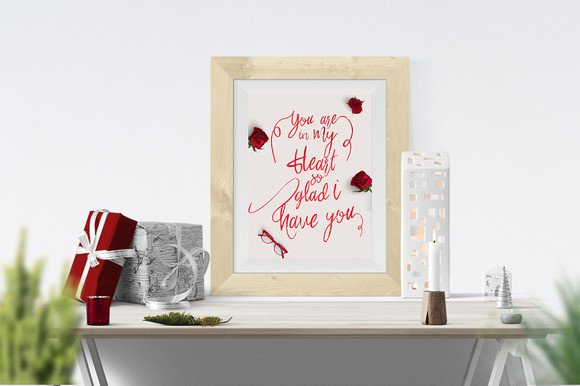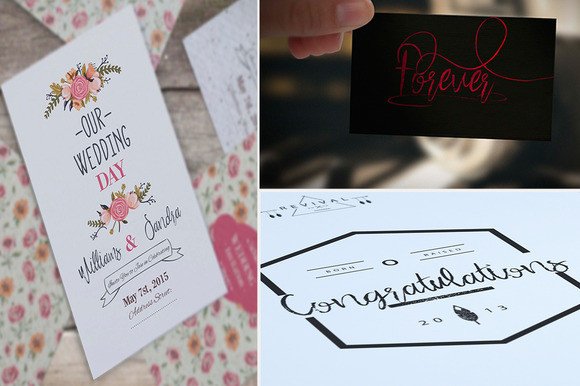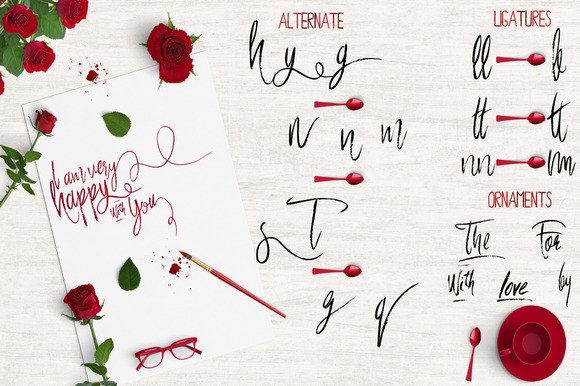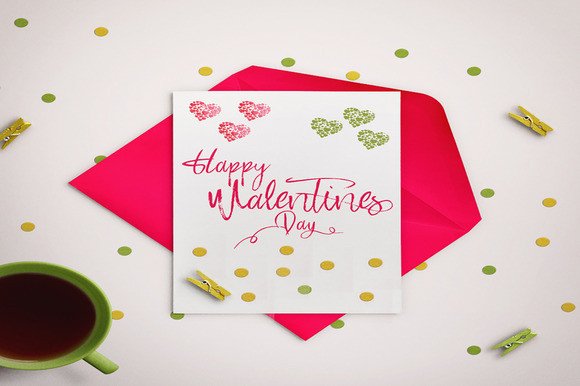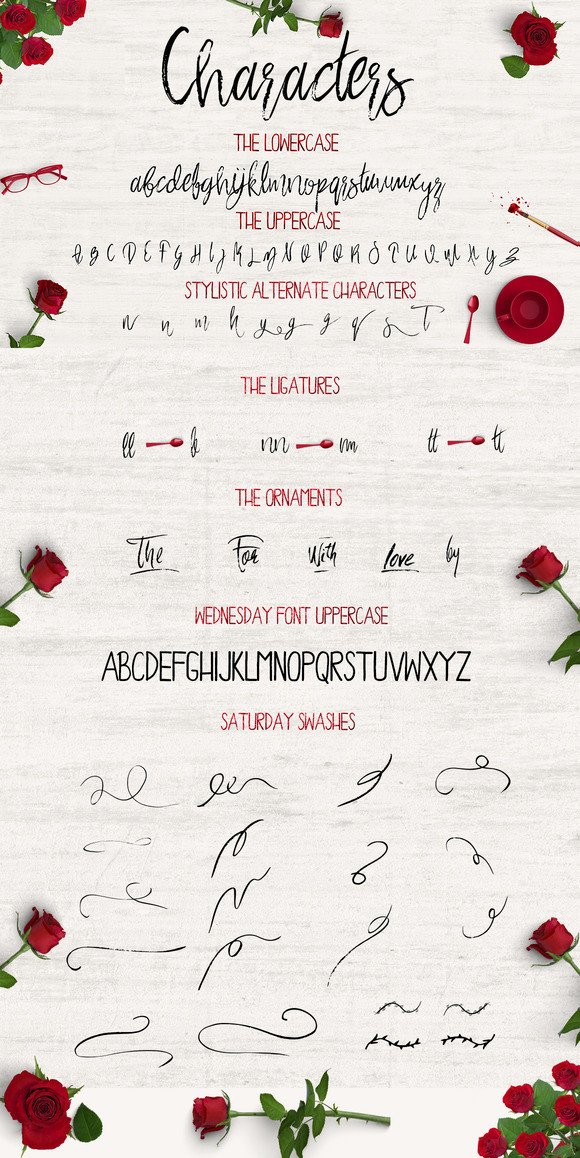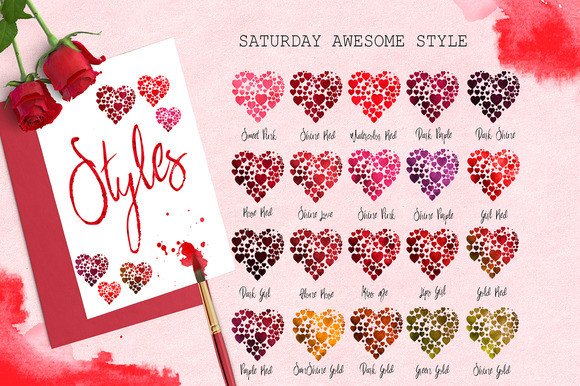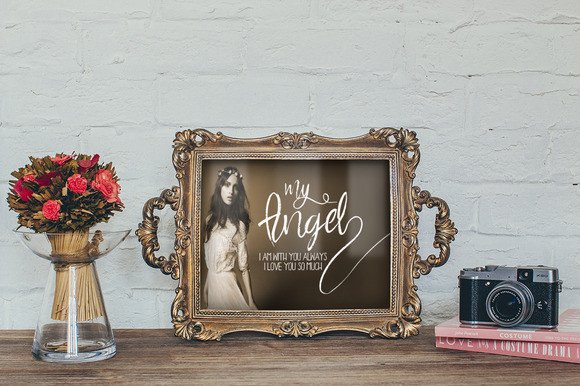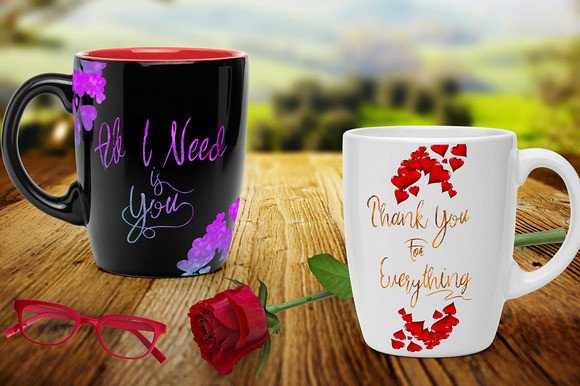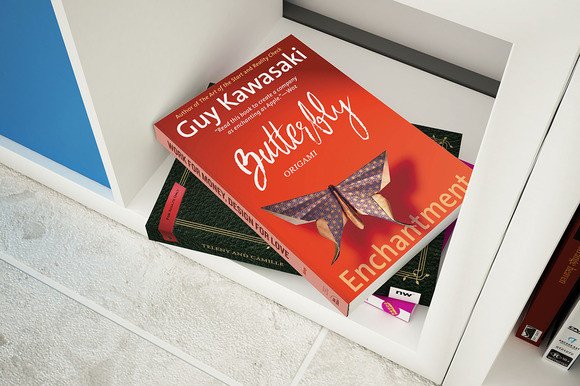
Saturday Font
About Saturday Font
Saturday is a playful, new, two brush painted typeface. Perfect for designing invitations, greeting cards, branding materials, business cards, quotes, posters, t-shirts, and much more!